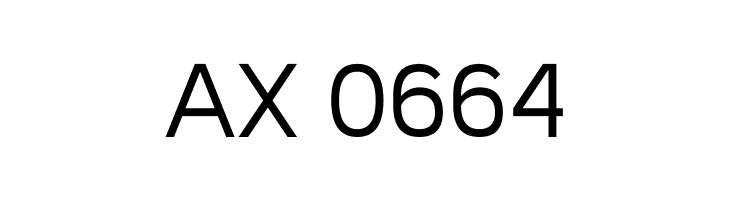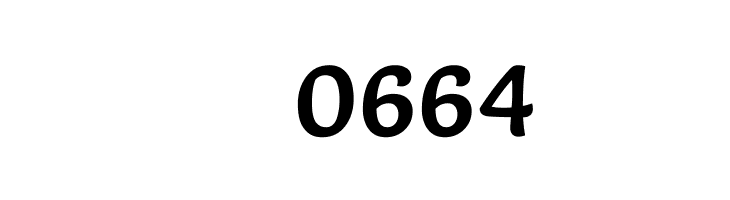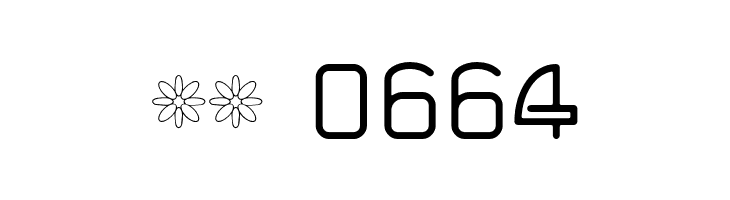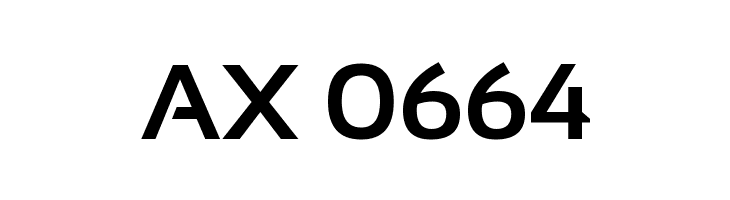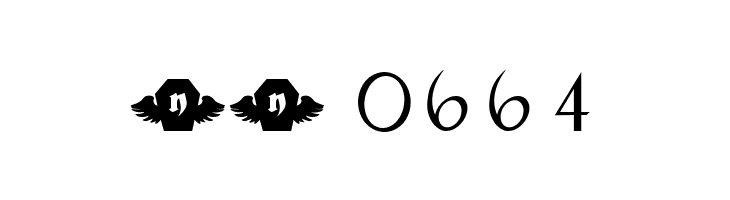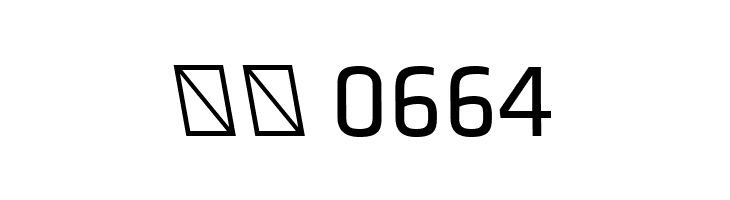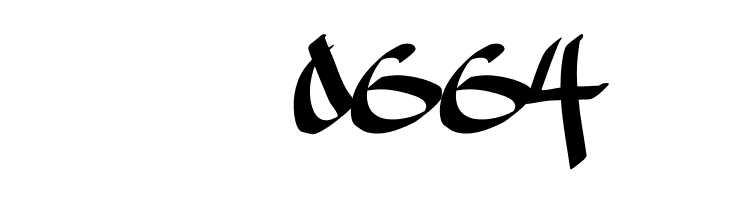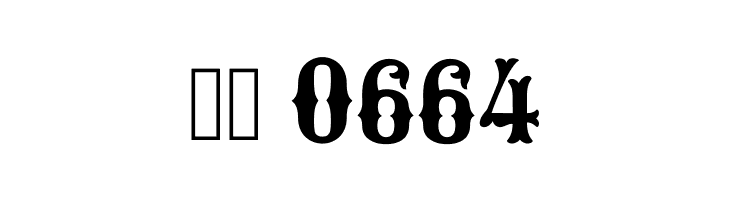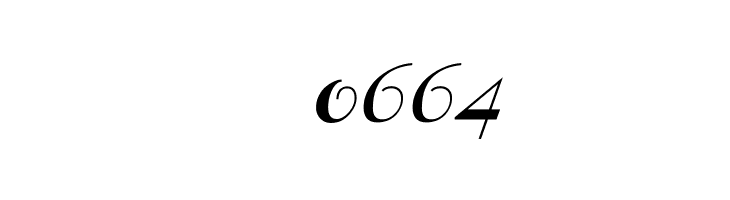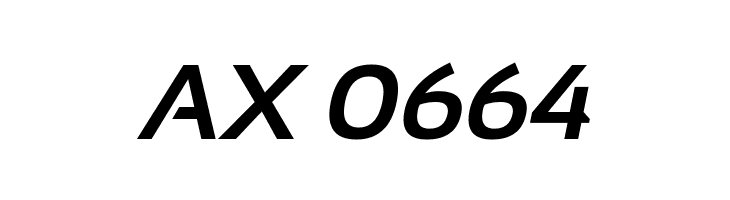
A bold, graffiti-inspired font with sharp, angular strokes and dynamic flow.
A bold, decorative font with vintage flair and intricate details.
An elegant and decorative script font with flowing curves and intricate details.
An elegant script font with ornate uppercase and bold lowercase letters.
An elegant script font with flowing cursive style and decorative flourishes.
A bold, jagged, and distressed font with a grunge aesthetic.
A futuristic, geometric font with a sleek and modern design.
A futuristic and abstract font with geometric shapes and consistent line weight.
A modern, geometric font with clean lines and rounded edges.
A modern, geometric font with rounded edges and consistent stroke width.
An ornate and decorative Gothic-style font with intricate detailing.
An ornate, Gothic-inspired typeface with intricate decorative elements.
A playful, hand-drawn style font with rounded, lively letterforms.
A lively, playful font with rounded, hand-drawn strokes.
A bold, graffiti-inspired font with sharp, angular lines and a hand-drawn look.
A whimsical font with mustache and beard motifs integrated into each character.
A robust slab serif font with balanced proportions and strong serifs.
A modern slab serif font with italic styling and consistent stroke width.
A tall, narrow font with elongated characters and a modern, artistic style.
A bold, narrow font with elongated characters and a dramatic style.
A bold, decorative font with a vintage Western style.
A bold, decorative font with a Western flair and ornate details.
A playful, bold font with rounded shapes and a retro-modern vibe.
A bold, playful font with rounded, decorative characters.
A modern, geometric font with a tall, condensed structure and consistent stroke width.
A modern, geometric typeface with a clean and professional look.
A modern, sans-serif font with clean lines and balanced spacing.
A modern, geometric font with a blend of rounded and straight edges.
A bold, geometric font with clean, rounded edges and a modern aesthetic.
A bold, modern sans-serif font with clean lines and strong legibility.
A bold, italic, modern sans-serif font with a sleek and dynamic style.
A sleek, modern sans-serif font with an italic slant.